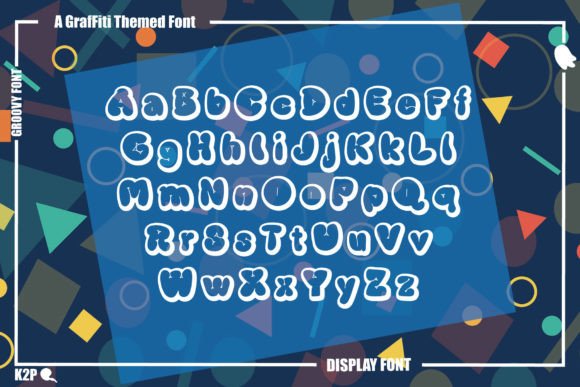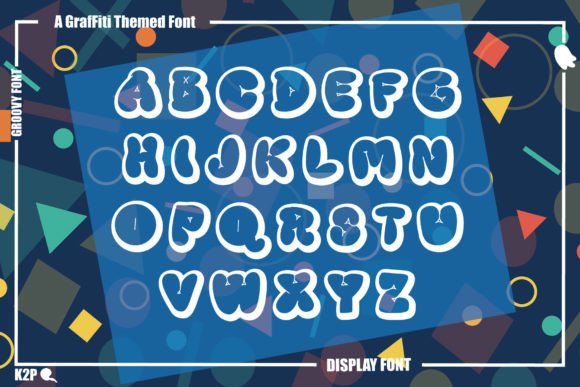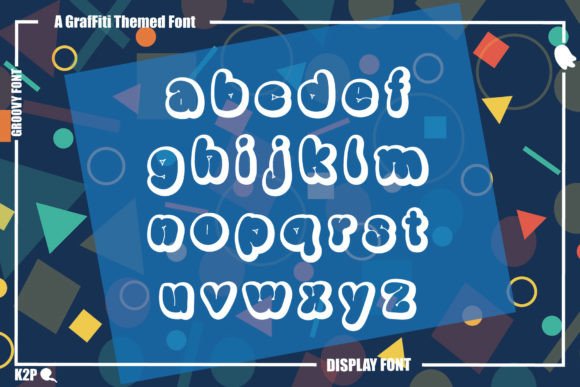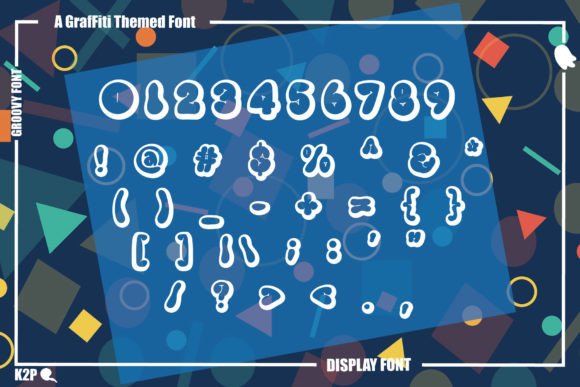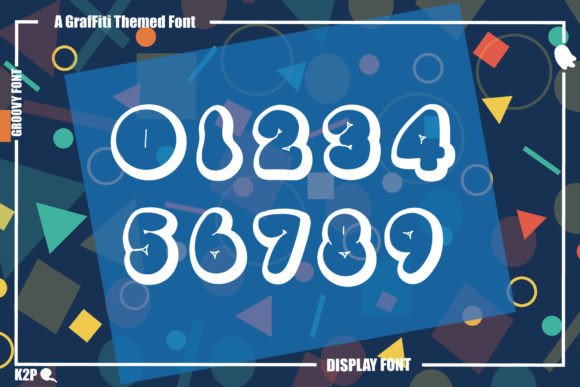
Discover the Groovy Chubby Font: Where Creativity Meets Joy
Do you remember the feeling of unwrapping a fresh box of crayons as a child? The rush of excitement and endless possibilities that came with it? That’s exactly the kind of creative energy that the Groovy Chubby Font embodies.
This fun and unique display font is designed to bring a smile to your face and inspire your next design project. With its playful, rounded shapes and bubbly personality, it’s the perfect addition to any children’s design, from nursery rhymes to cartoons. Whether you’re a seasoned designer or just starting out, the Groovy Chubby Font is a valuable asset to have in your toolkit.
Groovy Chubby Font Key Features
- Font Family: Groovy Chubby Font is a display font, ideal for use in titles, headings, and other attention-grabbing text.
- Character Set: Includes a wide range of characters, including Latin, Cyrillic, and Greek alphabets, as well as punctuation and symbols.
- Unique Characteristics: Groovy Chubby Font features a playful, rounded design with exaggerated curves and a bold, chunky feel, making it perfect for creating eye-catching and memorable designs.
- Font Style: Available in a single font style, but with multiple weights and widths, allowing for a range of design options and flexibility.
I recently had the chance to work with the Groovy Chubby Font, and here’s my honest take on it.
- The Groovy Chubby Font has a unique, playful vibe that’s perfect for projects that need a bit of whimsy.
- The font’s irregular shape and rounded edges add a touch of personality to text, making it stand out from more traditional fonts.
- The font is relatively easy to read, even at smaller sizes, which is a bonus for projects that require a lot of text.
- The Groovy Chubby Font may not be the best choice for projects that require a high level of professionalism or sophistication.
- The font’s irregular shape can make it difficult to use in situations where precise alignment is required.
- The font may not be compatible with all devices or operating systems, which could cause display issues.
Overall, I think the Groovy Chubby Font is a fun and creative option for projects that need a bit of personality. While it may not be the best choice for every project, it’s definitely worth considering for projects that require a playful touch.
Use the Groovy Chubby Font for designs that require a playful and eye-catching aesthetic, such as:
- Food and beverage labels
- Party invitations
Remember to use the font in moderation to avoid overwhelming the design.